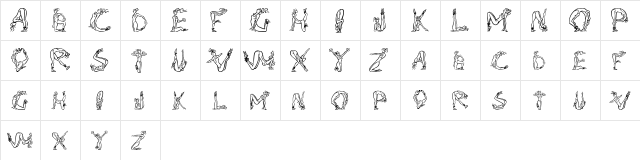
AlphaFitness Regular Font Preview
AlphaFitness Regular
Design Context for AlphaFitness Typeface
AlphaFitness is a composed and adaptable typeface that performs quietly and consistently across a wide range of design contexts.